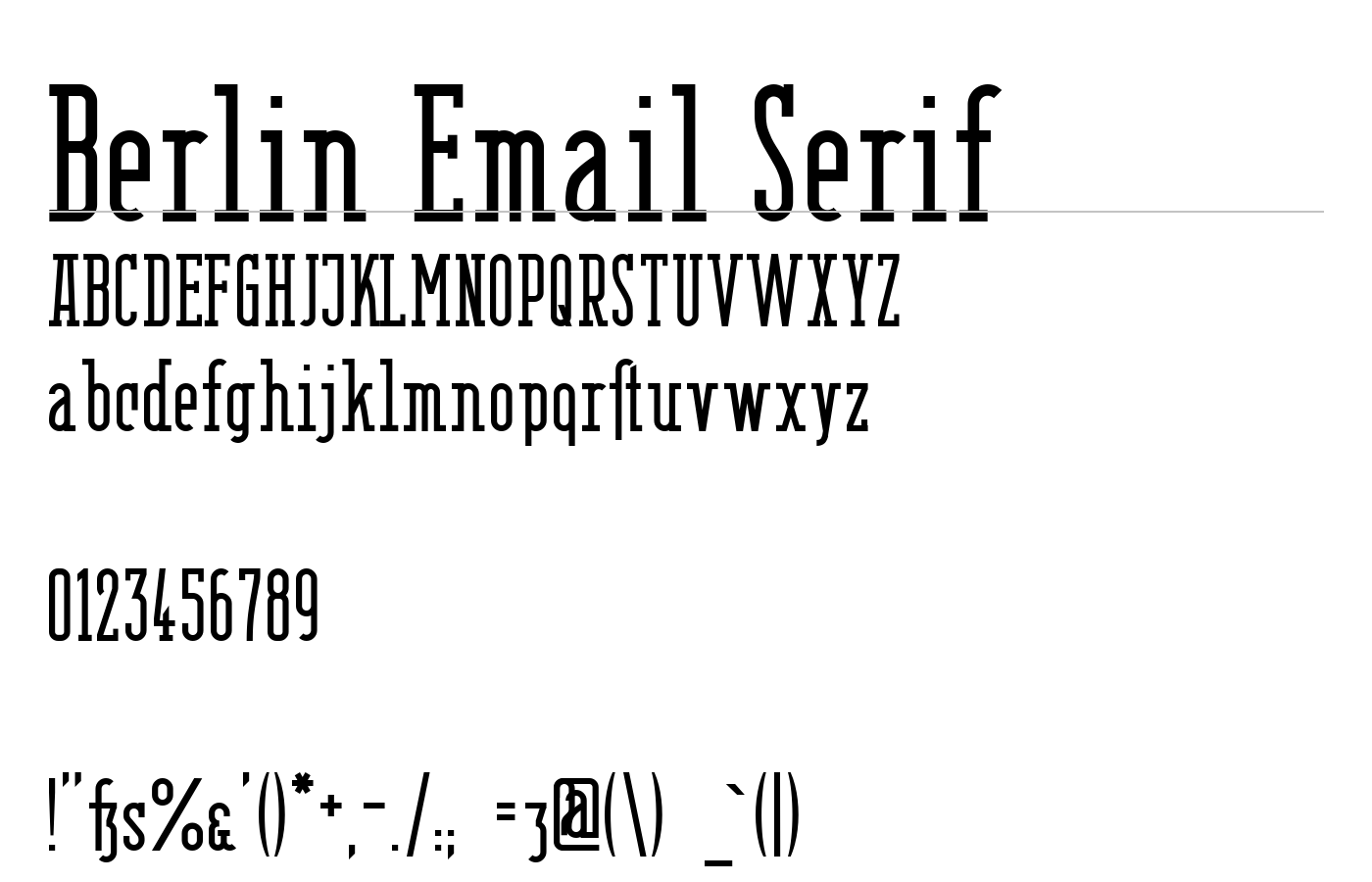
Berlin Email Serif is a tall, narrow serif font with a vintage slab serif style that combines strong, blocky serifs with a condensed structure. Its high contrast and sharp, geometric letterforms offer a distinctive, formal feel that suits editorial headlines, posters, and branding where a bold, classic yet modern impression is desired. This font works well for attention-grabbing display text, bringing a timeless and authoritative character to fashion, luxury, and creative design projects.
Berlin Email Serif Font
About Berlin Email Serif Font
| Designer | Peter Wiegel |